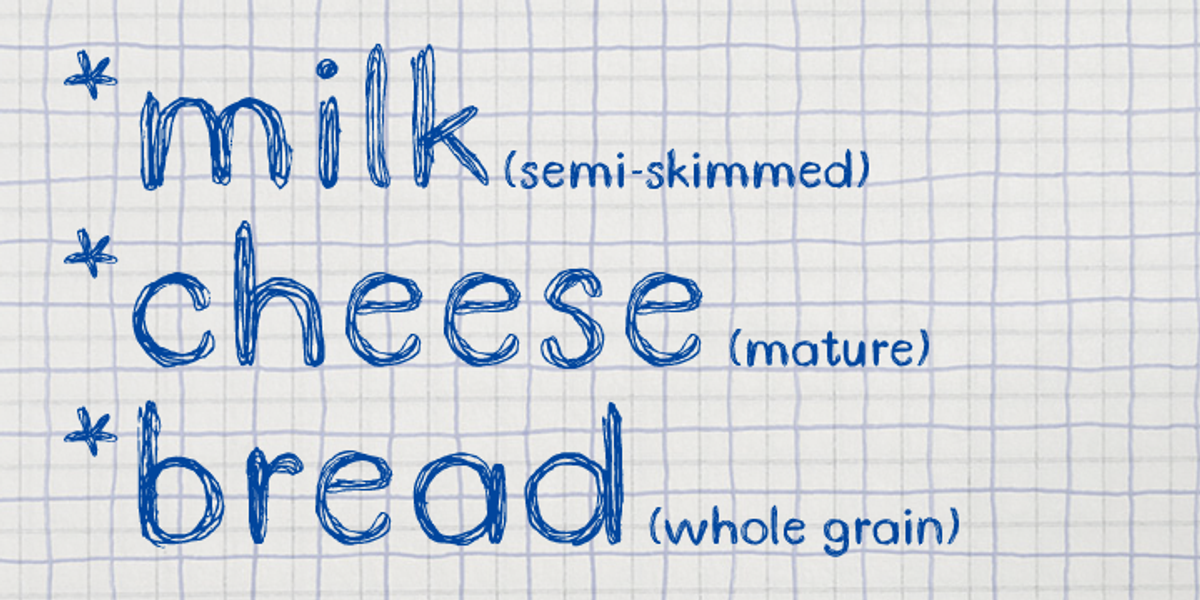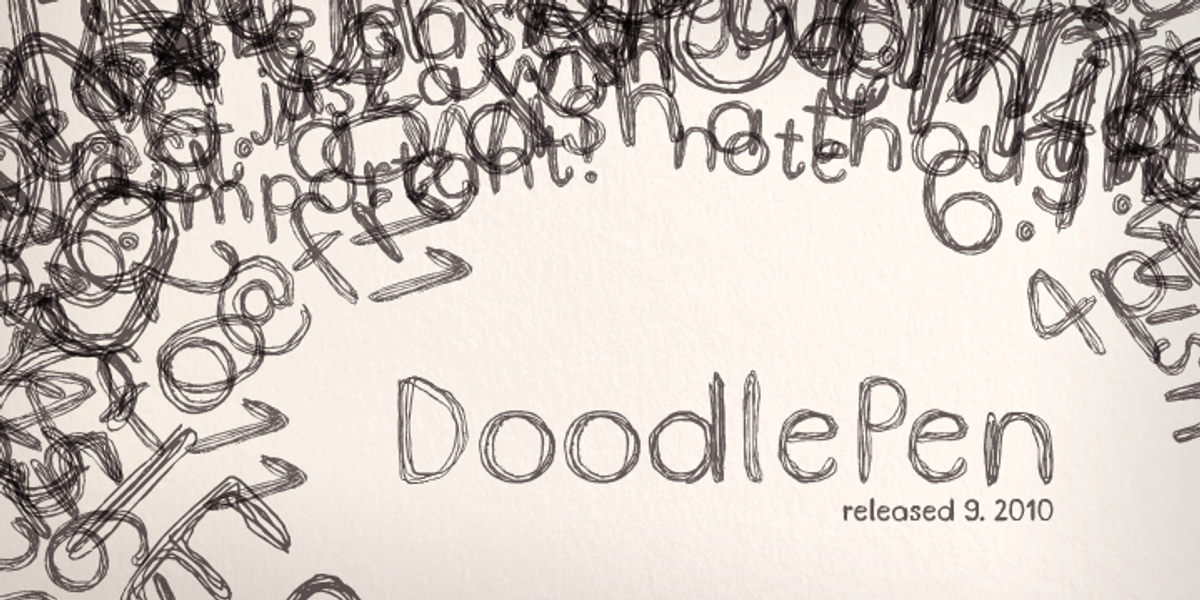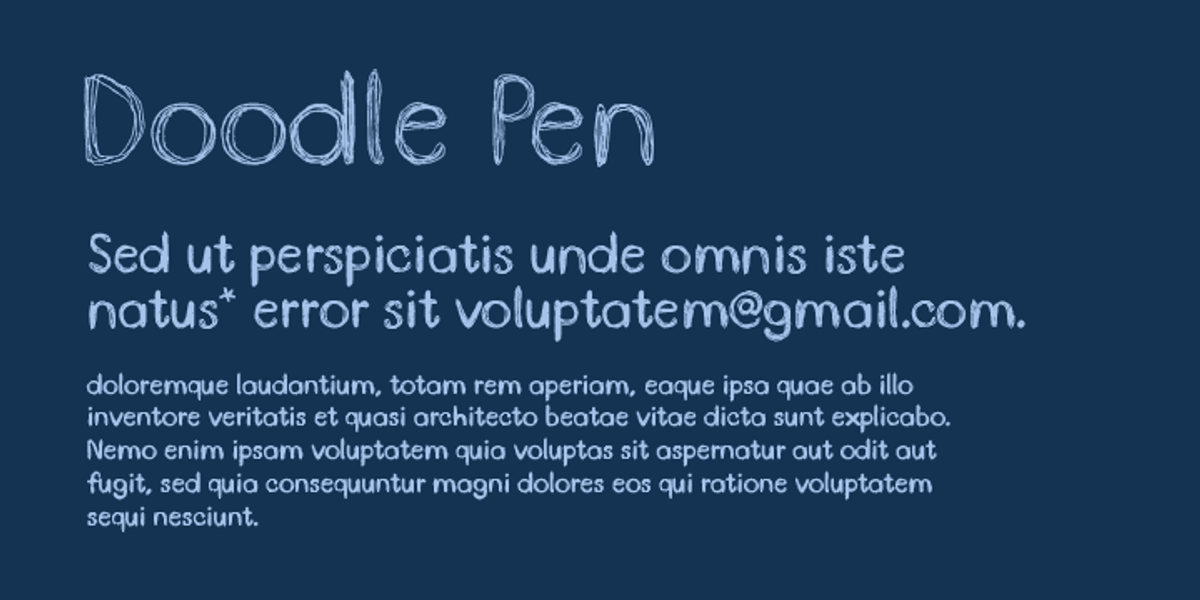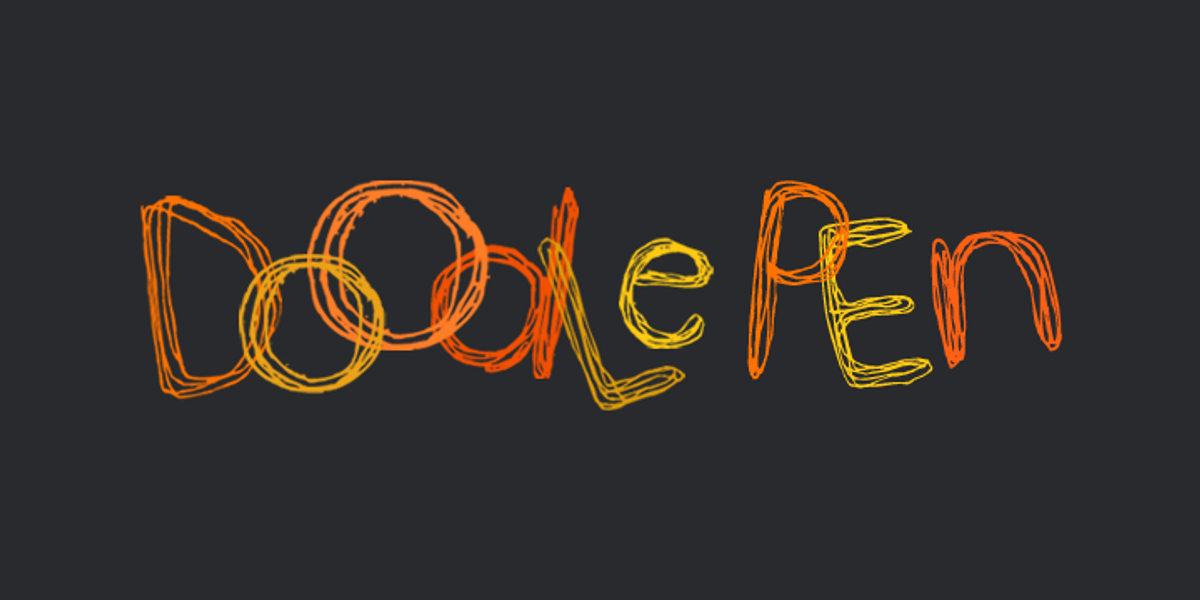
DoodlePen
Kind Type is a handwritten font that evokes the look of watercolor paint. Its open strokes and rounded terminals contribute to its legibility even at smaller sizes. The typeface carries a soft and friendly personality with a grunge-inspired distressed edge. It is well-suited for use in headings, captions, and short paragraphs where a casual and approachable tone is desired.